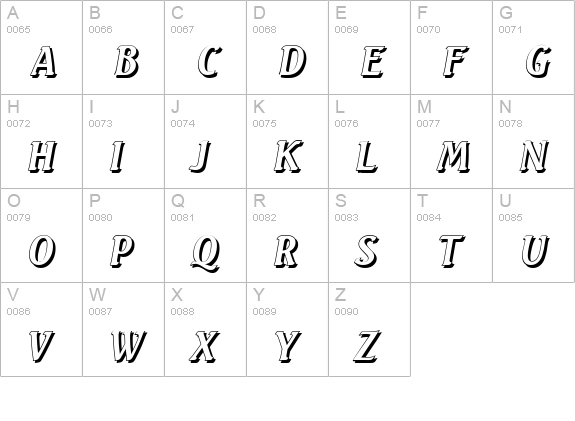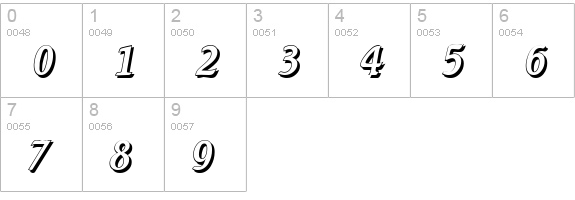
SeagullShadow-Italic is a distinctive, italic variant in the SeagullShadow typeface family \xE2\x80\x94 well suited to design and typography projects.
SeagullShadow-Italic font is a stunning and elegant typeface that exudes sophistication and modernity. Its sleek and stylish design makes it perfect for adding a touch of class to any project. The italicized style of SeagullShadow-Italic font adds a dynamic and dynamic flair to your text, making it stand out in a sea of ordinary fonts. Best of all, SeagullShadow-Italic font is available for free download at FontsMarket.com. This means that you can easily access this beautiful font without having to spend a penny. Whether you're looking to elevate your design projects or enhance your branding, SeagullShadow-Italic font is the perfect choice for those who appreciate quality and style. Download it now and take your designs to the next level!